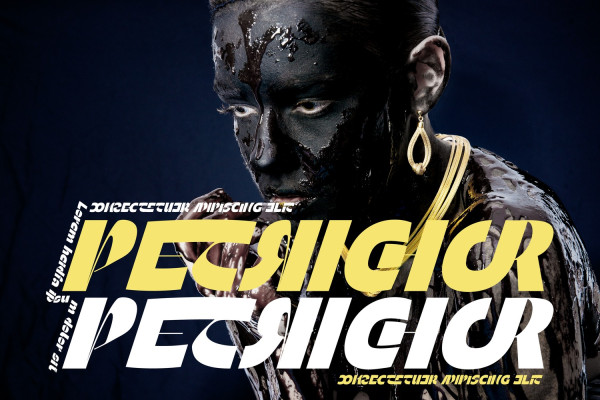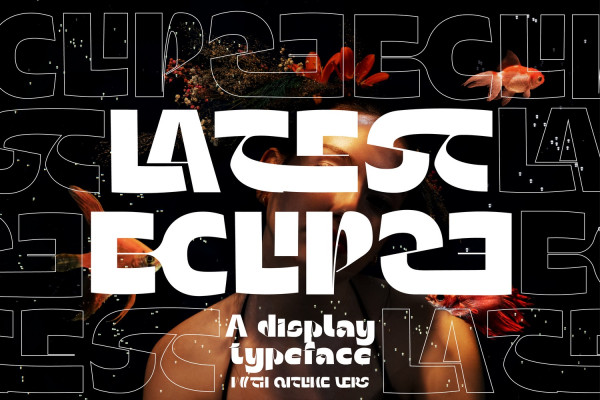
Latest Eclipse Font
LATEST ECLIPSE FONT is a font for display font that requires a modern/futuristic appearance. Uppercase and Lowercase are available equipped with standard symbols and multilingual characters. This font is designed to be dynamic with today’s style. Perfect for the purposes of designing templates, brochures, videos, advertising branding, logos, invitation, layout design, elegant crafting, beauty design and other.
LATEST ECLIPSE was built with OpenType features and includes 100 ligatures, alternate, numbers, punctuation, and it also supports other languages.
AC AD AL AN AR AS AT AU AV BE CA CE CH CO CT DE DI EA EC ED EE EL EM EN EP ER ES ET FE FO FR GE HA HE HI HO IE IC IL IN IO IR IS IT JU KE LA LE LI LL LO LY MA ME MI NC ND NE NG NO NT NS OC OF OM ON OO OP OR OT OU OW PA PR RA RD RE RI RO RS RT SE SH SI SO SS ST TA TE TH TI TO TR TT UM UN UR VE WI WO